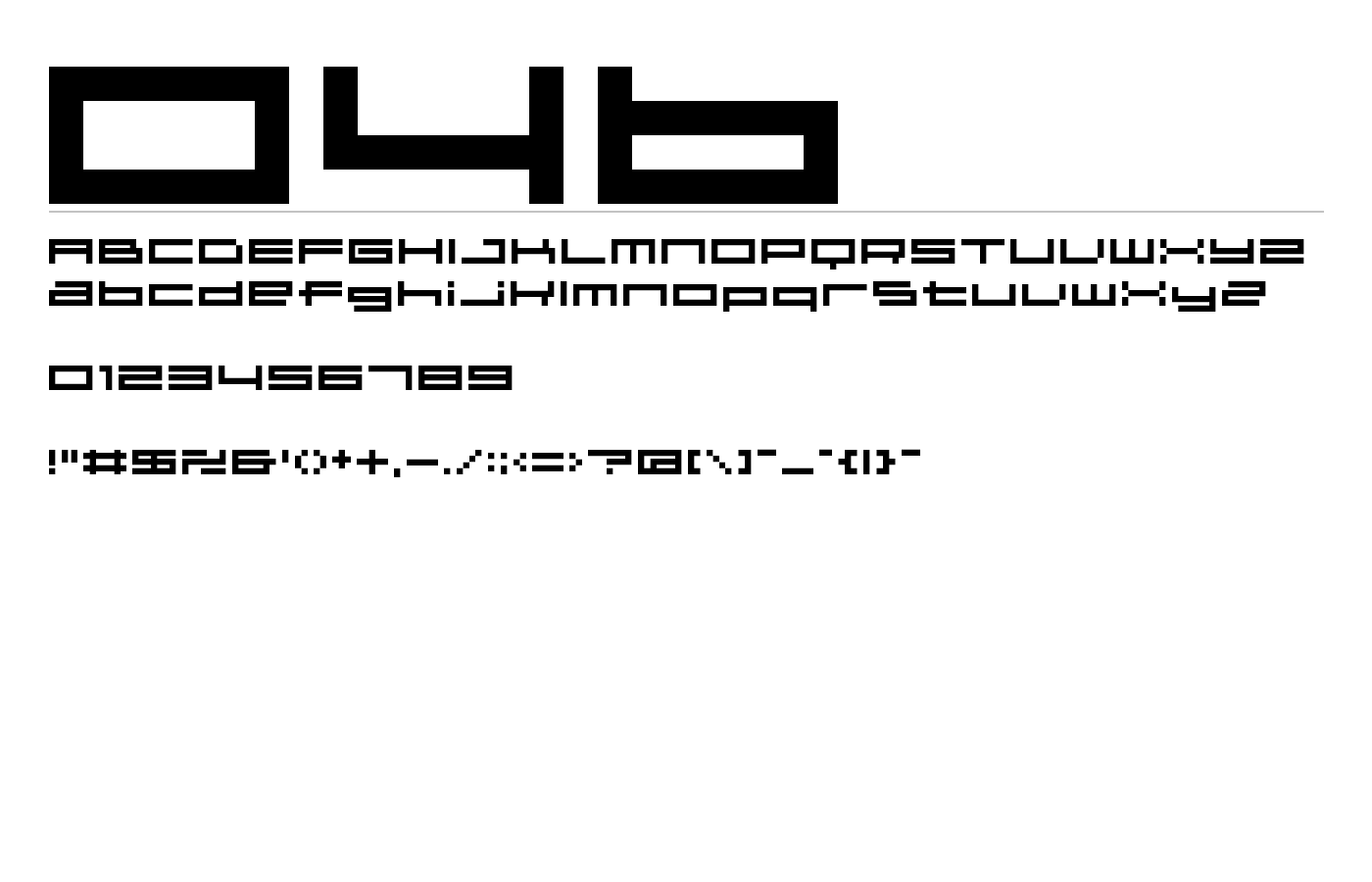
The 04b font is a bold, geometric sans serif with a distinctive pixelated, blocky style that feels modern and digital. Its monospaced characters and uniform stroke weight give it a technical, retro-computer look, making it perfect for tech-inspired designs, coding interfaces, or digital-themed branding. This font works especially well in headlines, product packaging, and websites where a futuristic, minimalistic vibe is desired.
04b Font